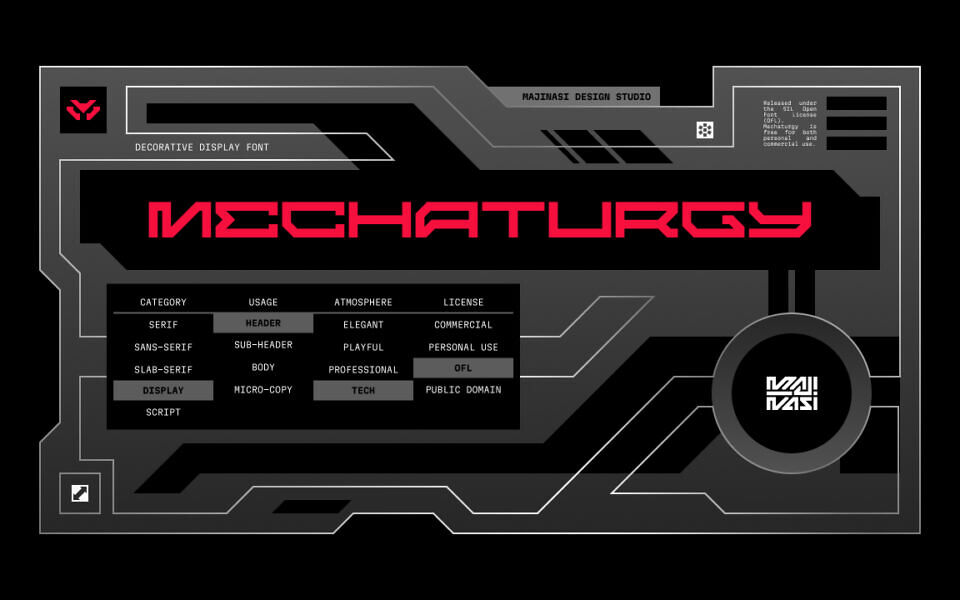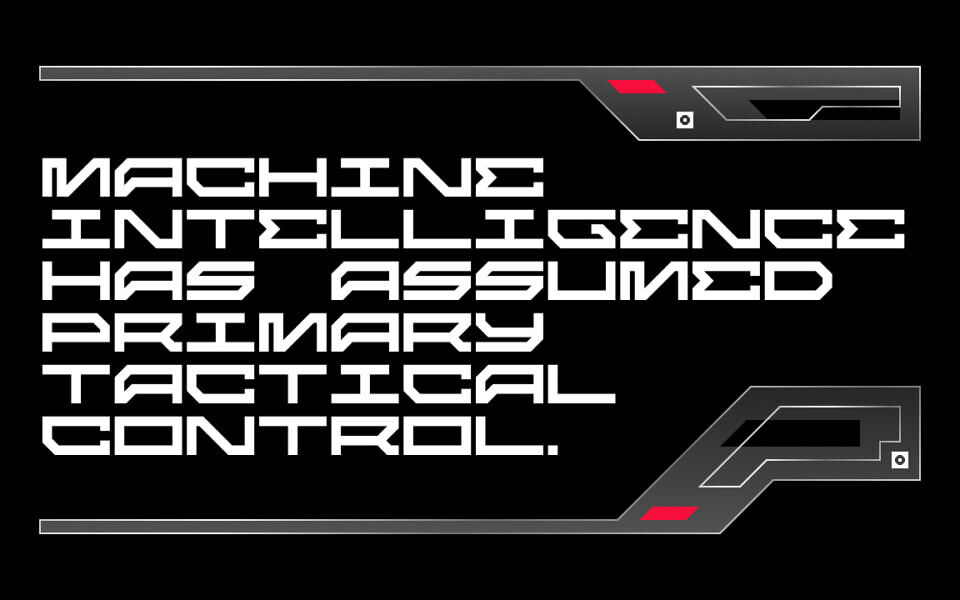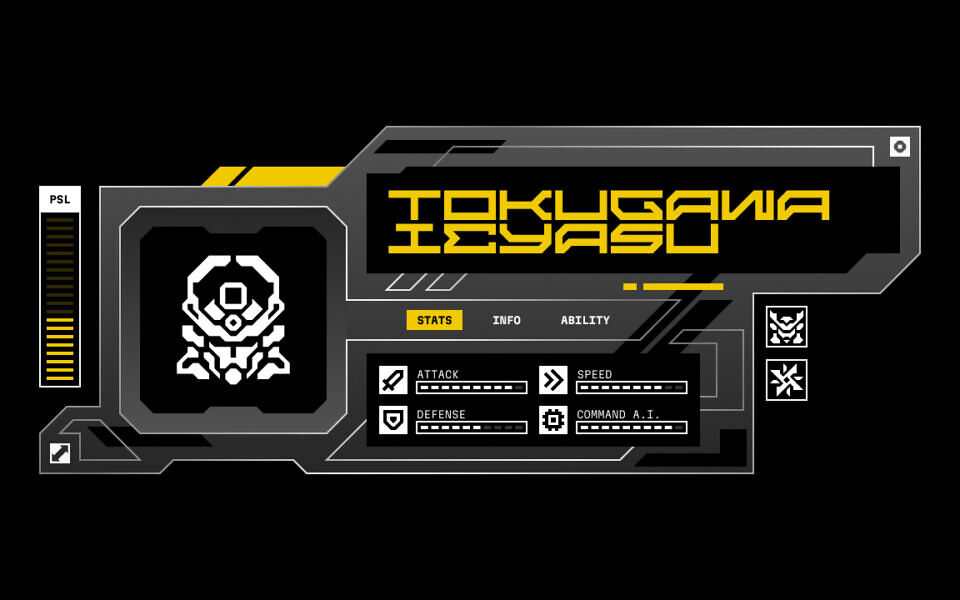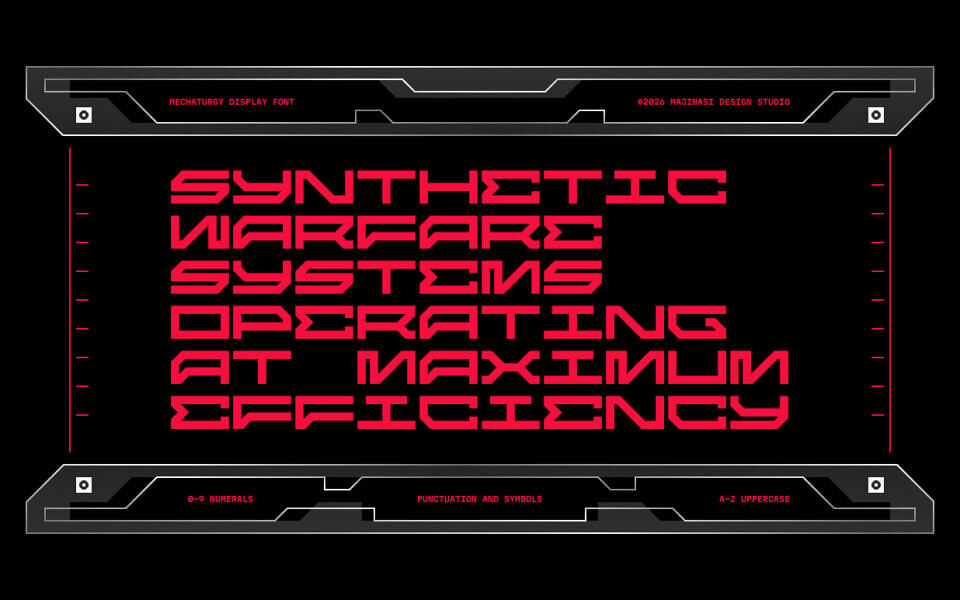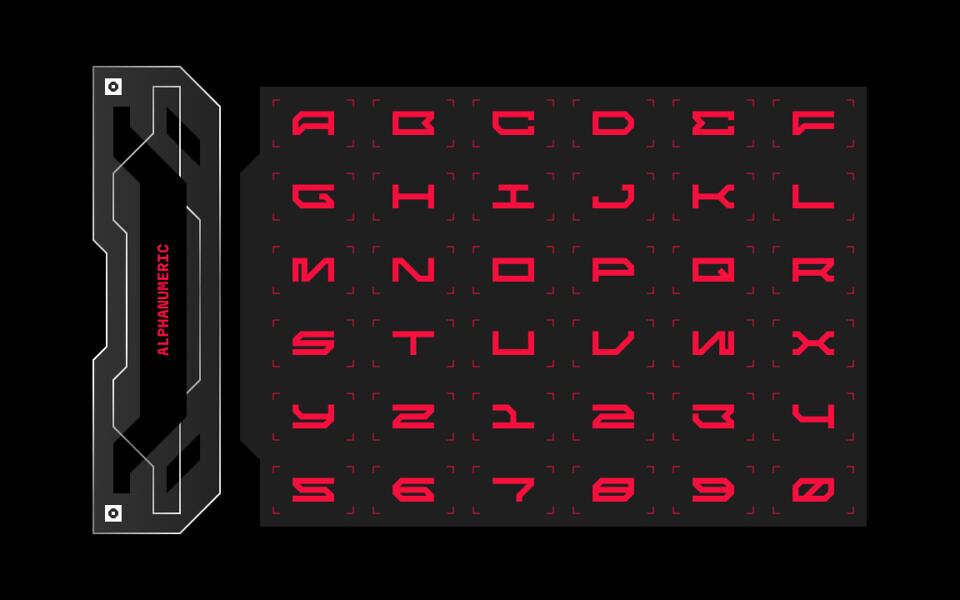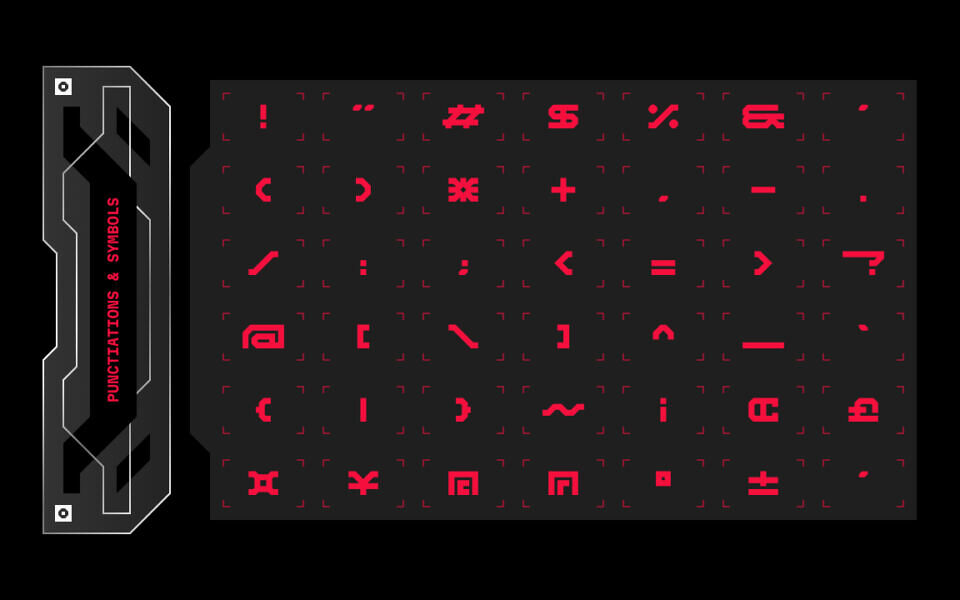
Mechaturgy is a bold, futuristic display typeface engineered with precision and intent. Built from sharp angles, rigid structures, and mechanical cuts, each letterform reflects the logic of machines. The design emphasizes clarity through structure, with forms that feel assembled rather than drawn, like components of a larger system.
Its compact proportions and aggressive geometry create a powerful visual presence, making Mechaturgy ideal for high-impact applications. Whether used in sci-fi branding, tech interfaces, game titles, or experimental visuals, the typeface delivers a sense of advanced technology and engineered dominance.